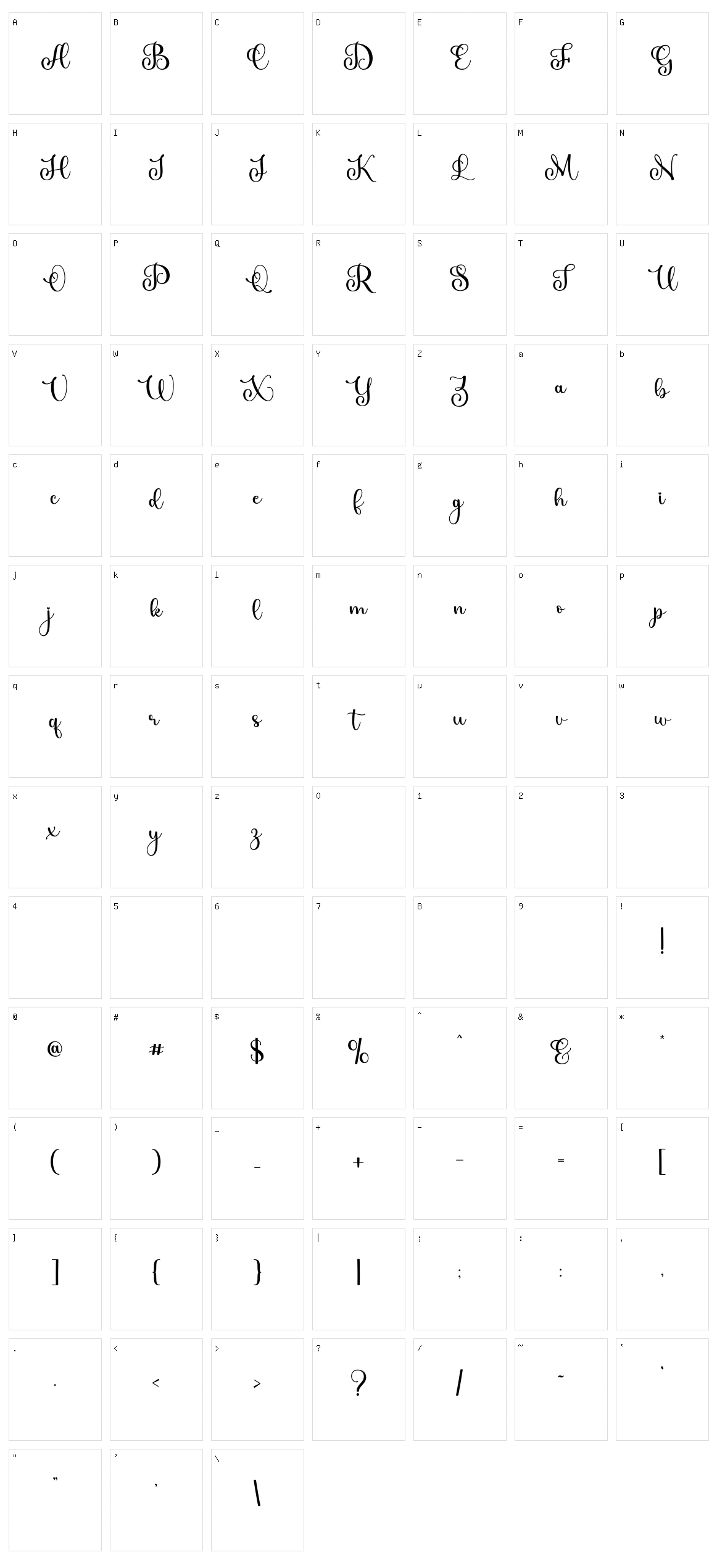
The free font Love Birch is carefully designed by Figstype, showcasing a thoughtful balance of creativity and usability and falls under the Script font style. When you download the ZIP file, it contains only 80.05 KB of font files, making it lightweight and quick to download. Please review the license details below to understand permitted usage and distribution rights. If license information is not available, we recommend using this font for personal projects only or contacting the author directly for commercial usage permissions.